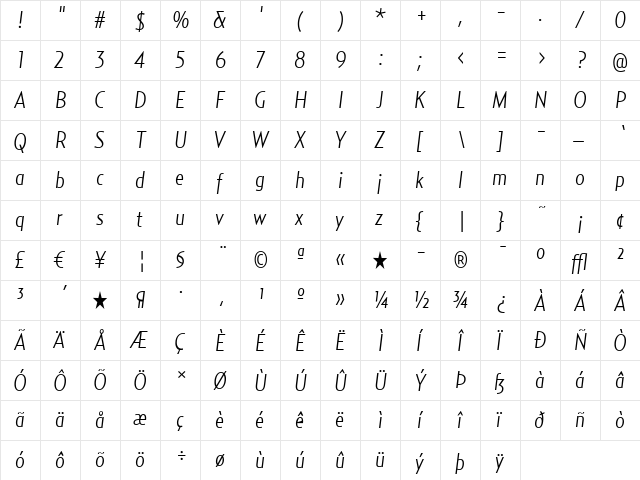
RelayCond-LightItalic Regular Font Preview
| Designer | Cyrus Highsmith |
Design Context for RelayCond-LightItalic Typeface
RelayCond-LightItalic is a composed and adaptable typeface that performs quietly and consistently across a wide range of design contexts. The dynamic lean of this cut emphasises speed and emphasis in any layout. The delicate stroke weight brings airiness and refinement to layouts. Its narrow stance lets it pack a punch even in space-constrained designs.
Pro Tip: Try RelayCond-LightItalic for annotation and caption copy alongside an upright companion — the contrast in angle creates a dynamic but ordered typographic system.